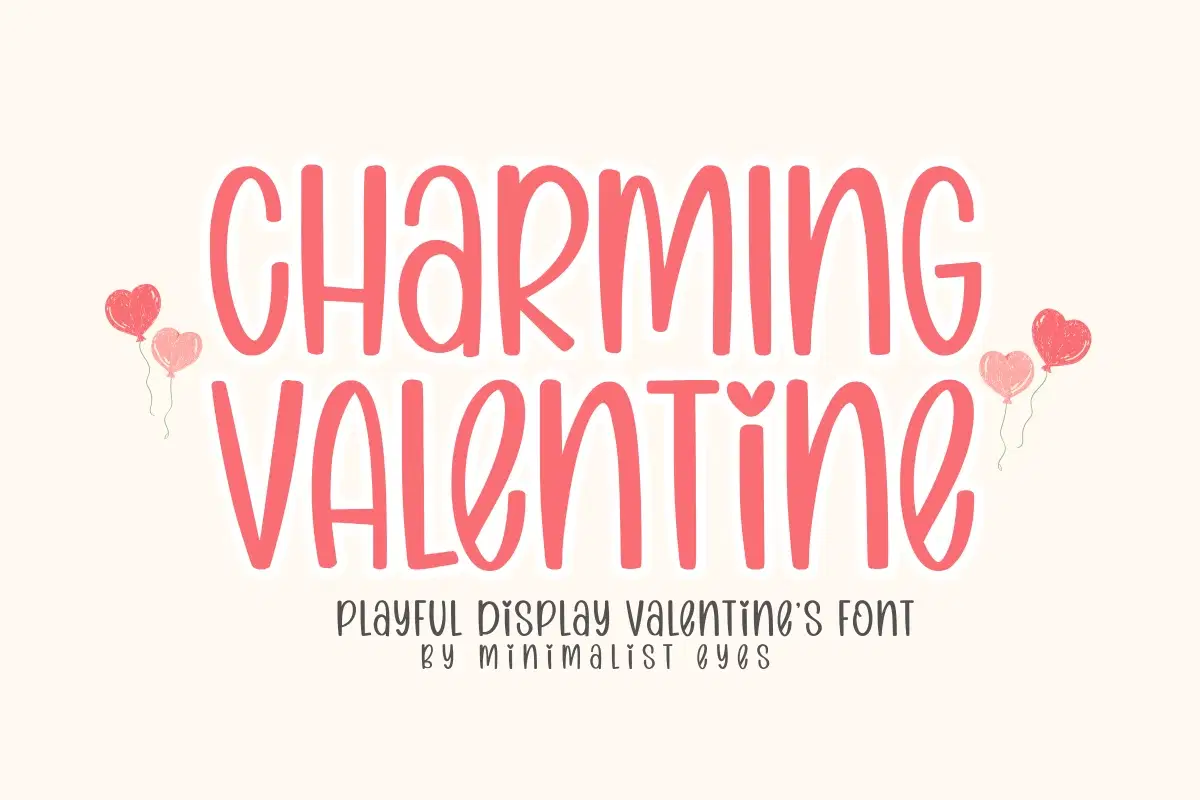
Charming Valentine is designed in a cute and friendly display font style. This would be awesome for your fun projects or diary planner. Let’s try it for your perfect project like Easter, back to school, wedding, party decorations, invitations, Fall, Summer, Winter, Halloween, Valentine Days, Christmas, posters, blogs, clothing, kids-related designs, greeting cards, social media posts, or anything that requires a friendly touch. Add it now to your font library.